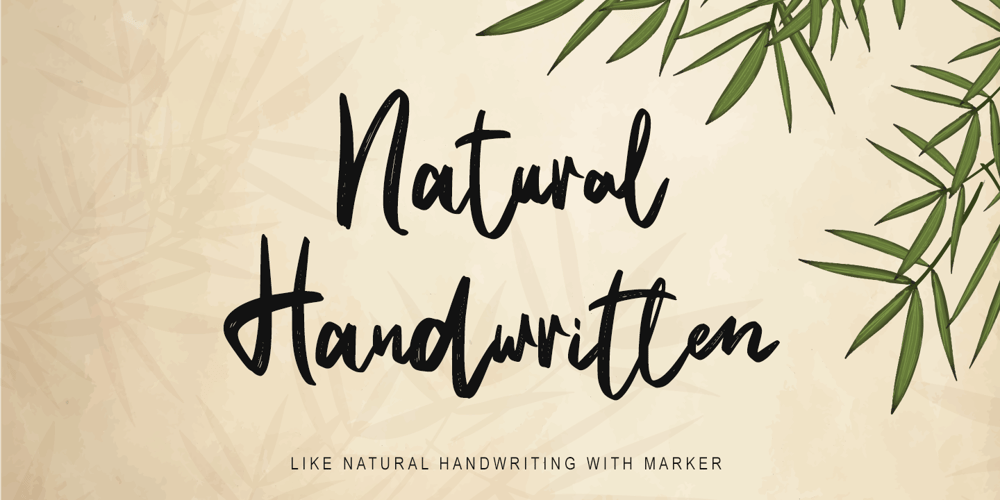
Natural Handwritten Font Family was designed by Thomas Aradea and published by Letterara. Natural Handwritten contains 1 styles and family package options. Natural Handwritten feels just as charming and elegant. This stunning brush handwritten font is a stylish homage to classic handwriting. It also features many special features including glyphs and ligatures so that it displays natural and original handwriting. This font is PUA-coded which means you can access all the amazing glyphs and ligatures with ease!